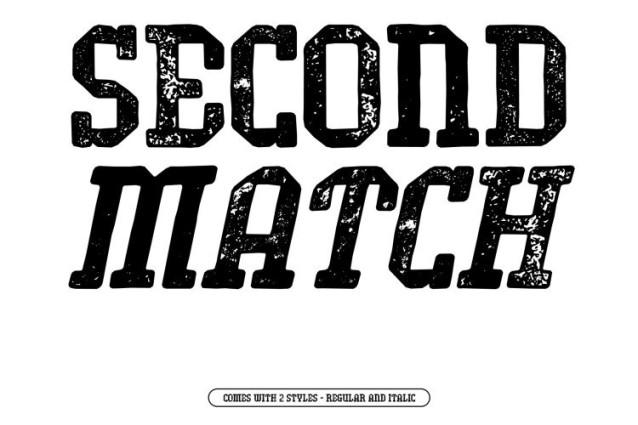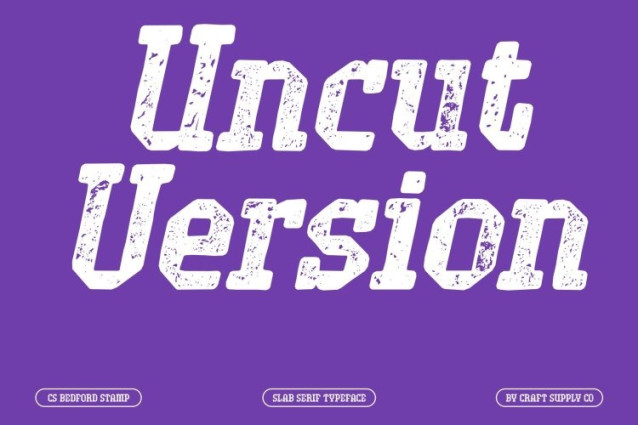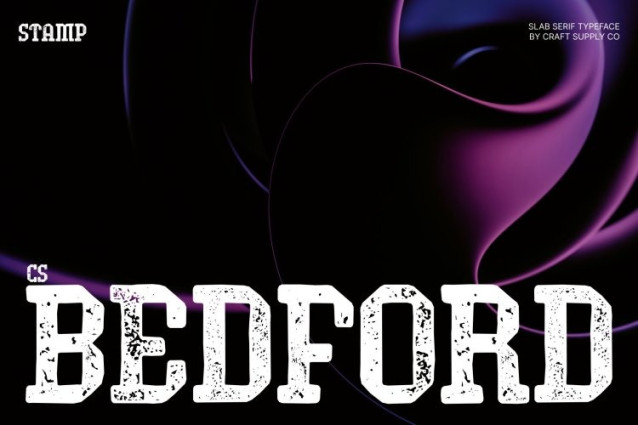
CS Bedford Stamp Font
CS Bedford Stamp Font This is a modern slab serif font that merges futuristic aesthetics with bold, industrial-inspired construction. Its strong geometric letterforms project confidence and authority, while the stamp effect introduces a textured, slightly worn surface that adds depth and realism. This combination creates a typeface that feels modern and forward-looking, yet grounded with tangible, tactile character.
Built for Headlines, Posters, and High-Impact Display
Designed to command attention, performs exceptionally well in headlines, posters, advertisements, billboards, and logos. Its wide stance, solid slabs, and structured forms ensure excellent readability at large sizes, while the stamped texture enhances visual interest making every message feel powerful and intentional.
Industrial Strength with Visual Depth
The industrial influence is evident in the font’s architectural structure and mechanical precision. Paired with slab serifs, it delivers weight, stability, and a sense of durability. The stamp effect softens the rigid geometry just enough, adding a human, handcrafted edge that prevents the design from feeling overly sterile.
Versatile for Modern and Futuristic Branding
This font adapts seamlessly across print and digital applications. From corporate branding and editorial layouts to event graphics and large-format signage, its futuristic slab serif design provides a strong and memorable visual identity. Designers can rely on this font to communicate power, innovation, and modern sophistication while the stamped texture ensures lasting impact and distinctive character.